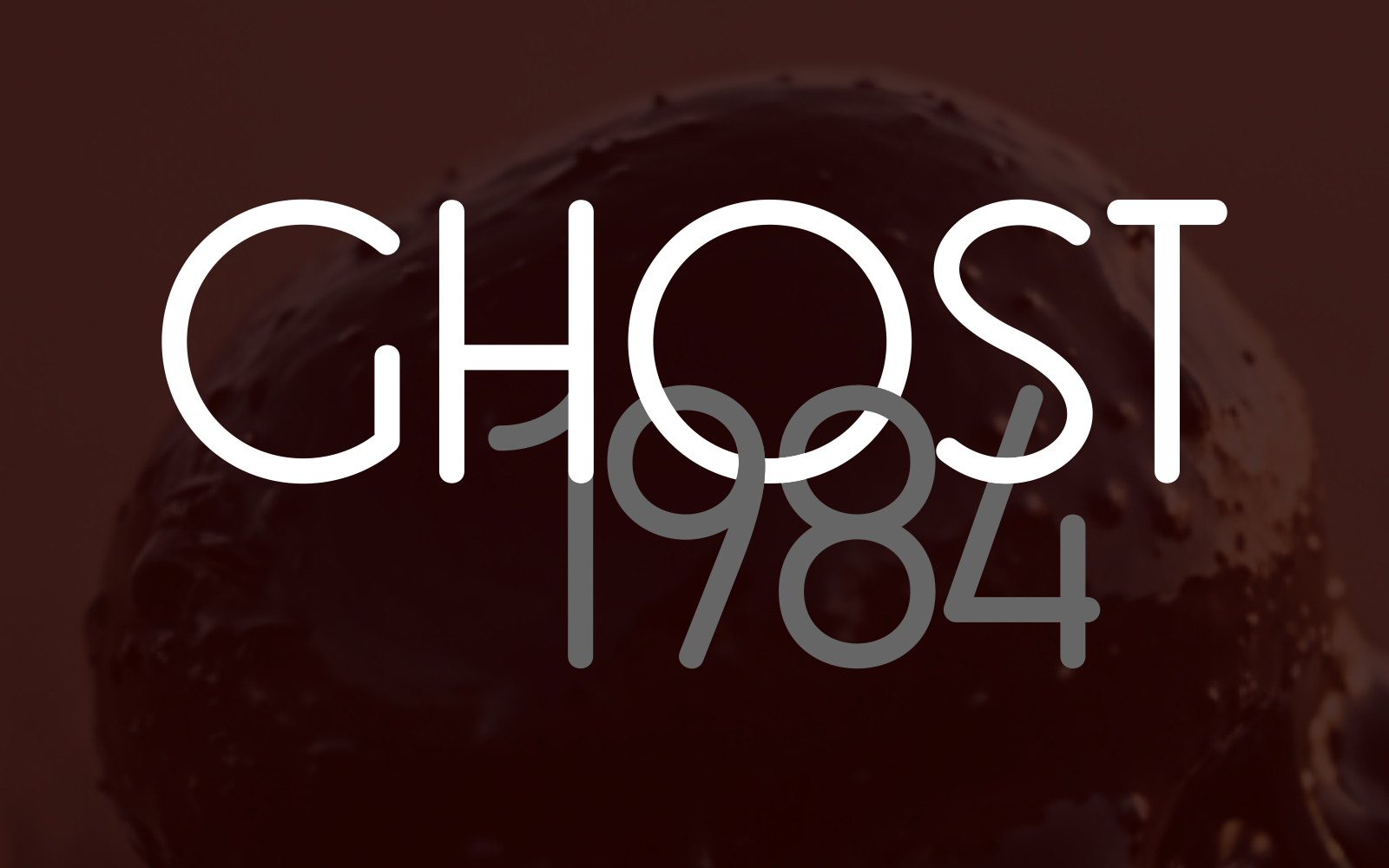
Ghost 1984 Slim Lite Font
Introducing GHOST 1984 – a clean, minimalist font with rounded edges, designed for versatility and ease of use. Its lightweight style makes it perfect for a variety of design projects, from logos to posters. Whether you're creating modern branding, website headings, or sleek promotional material, GHOST 1984 brings a fresh, contemporary touch to any design. Its simplicity and readability make it an ideal choice for both digital and print applications, ensuring your message stands out with style.